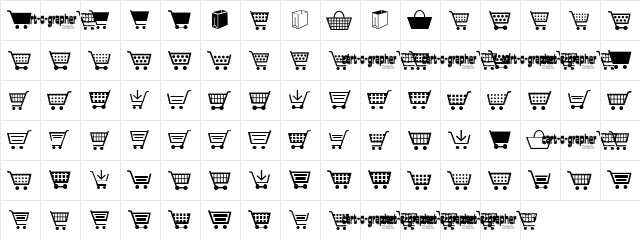
cart o grapher Regular
Design Context for cart o grapher Typeface
cart o grapher is a composed and adaptable typeface that performs quietly and consistently across a wide range of design contexts.